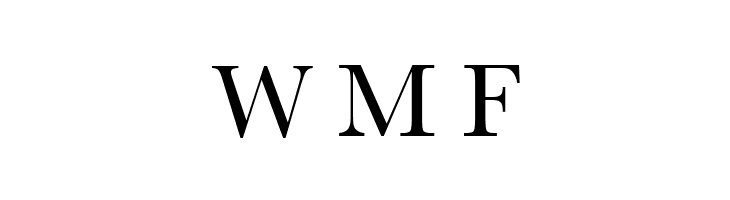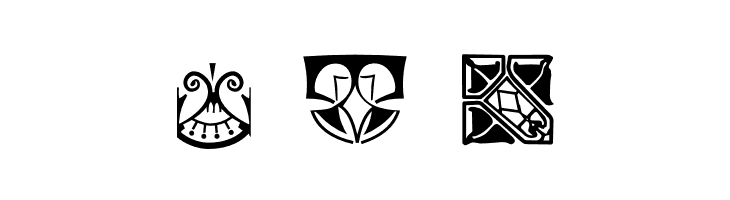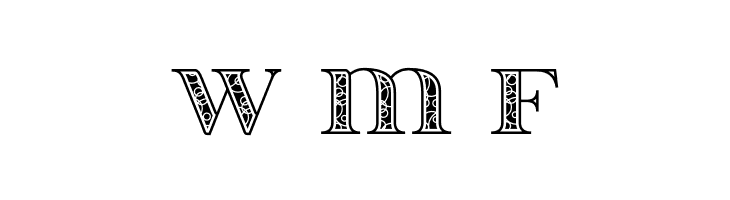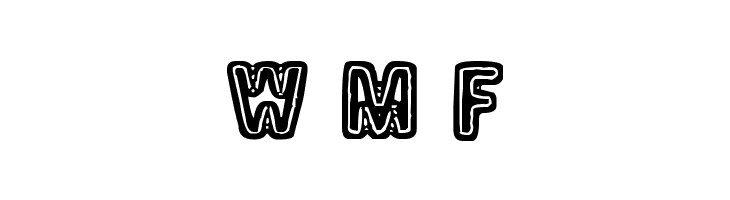
Intricate decorative elements inspired by Nouveau, Rococo, and Deco styles.
An ornate, decorative serif font with intricate interior patterns.
Art Nouveau-inspired ornamental designs with floral and geometric motifs.
A classic serif font with elegant curves and sharp serifs, offering a sophisticated and timeless look.
A bold, double-outlined decorative font with a playful and engaging style.
An elegant, ornate script font with flowing, decorative letterforms.